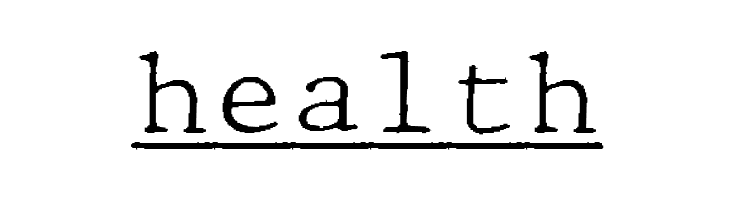
A bold, angular font with a futuristic and decorative style.
A decorative font with intricate, tribal-inspired patterns in each character.
A bold, textured font with a distressed, handcrafted appearance.
A bold, industrial font with punk and cyborg influences.
A vintage, typewriter-inspired serif font with bold, irregular strokes.
A playful, handwritten font with smooth curves and a dynamic style.
A flowing, cursive font with interconnected characters and a handwritten style.
A bold, hand-drawn font with a playful and organic style.
A bold, playful handwritten font with dynamic, slanted characters.
A bold, geometric font with a modern and technical design.
A bold, italicized font with a modern, geometric design.
A geometric, modern font with octagonal shapes and thin strokes.
A modern, geometric italic font with an extra light weight and sharp, angular letterforms.
A modern, geometric italic font with a sleek and dynamic appearance.
A geometric, modern font with angular, technical styling.
A modern, geometric italic font with a sleek, technical aesthetic.
A modern, geometric font with angular and structured letterforms.
A modern, geometric sans-serif font with an italic slant and medium weight.
A geometric, modern font with angular, futuristic design.
A geometric, modern typeface with bold, angular characters.
A modern, semi-bold italic font with a dynamic and futuristic style.
A dynamic and fluid script font with elegant, flowing letterforms.
A decorative, hand-drawn font with elegant swirls and a chalk-like texture.
A playful, textured font with a chalk-like, hand-drawn appearance.
A bold, chalk-textured font with an informal, hand-drawn style.